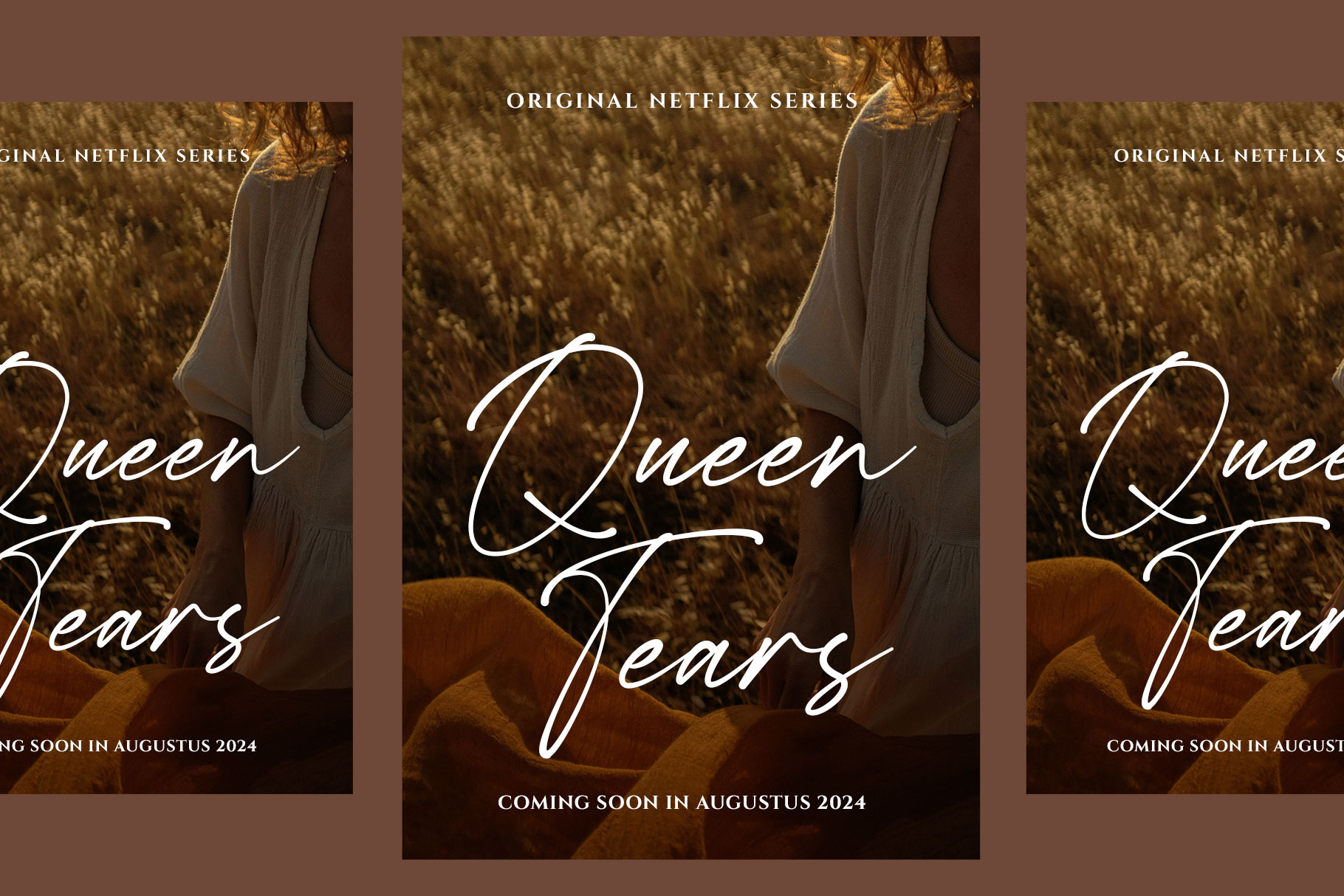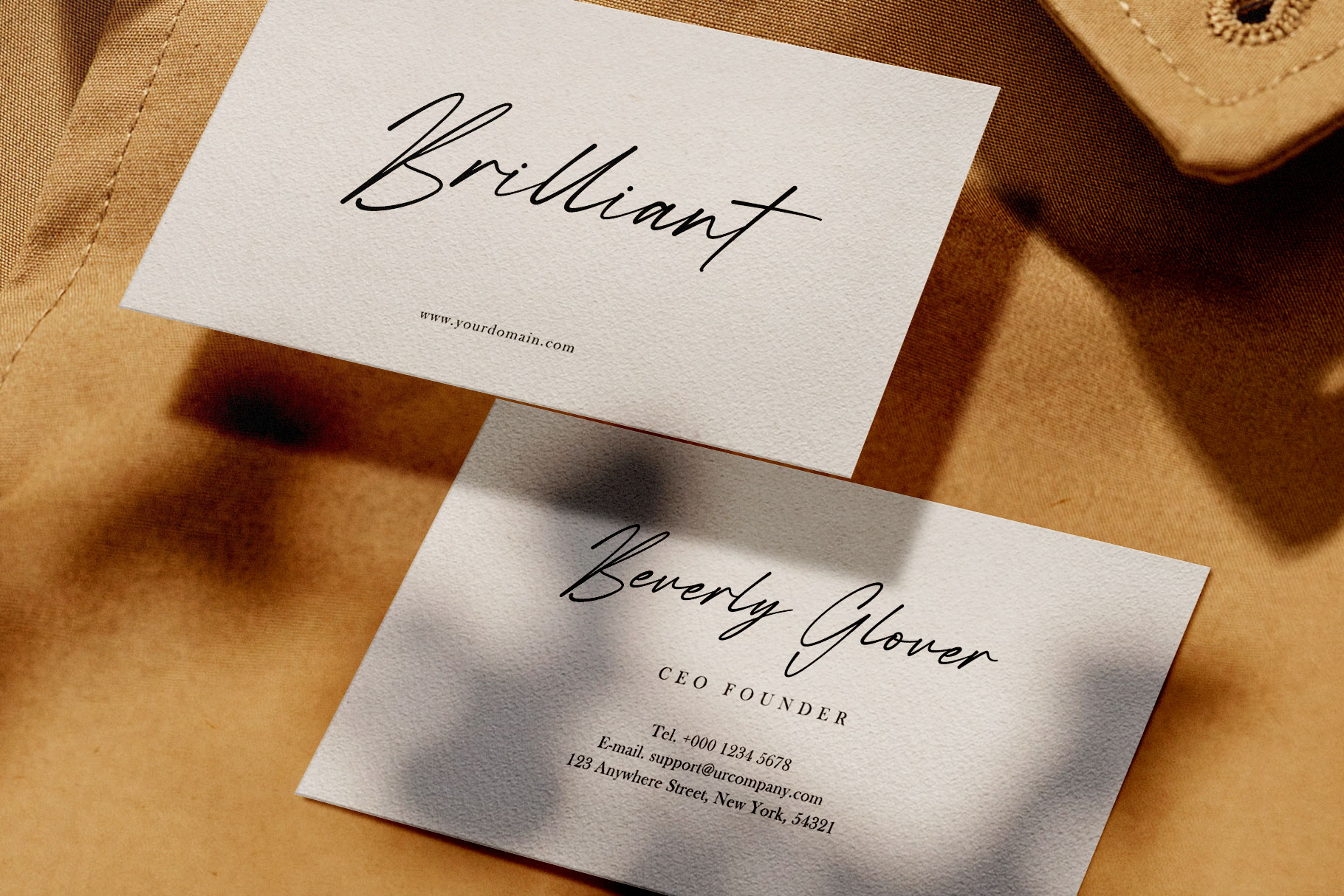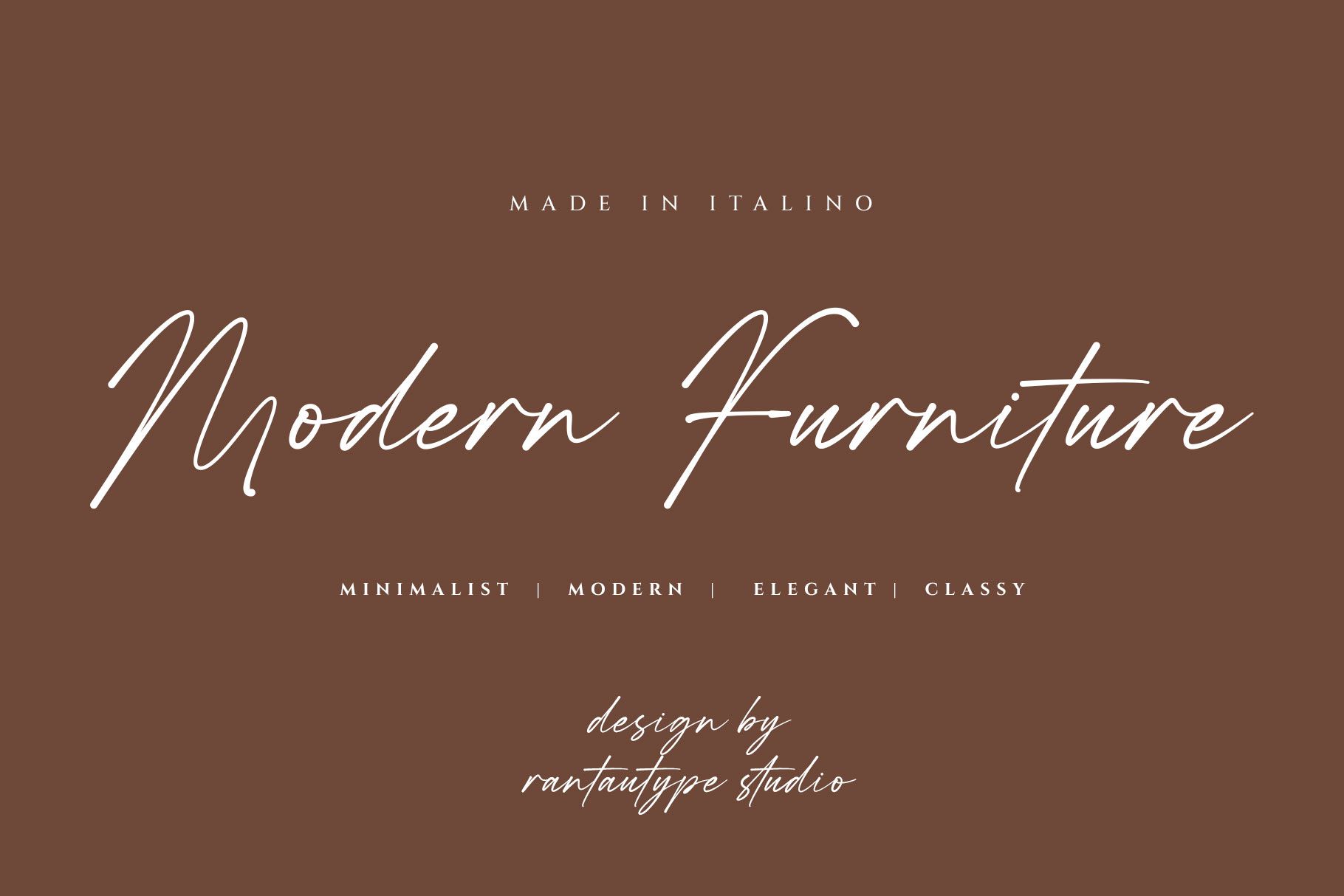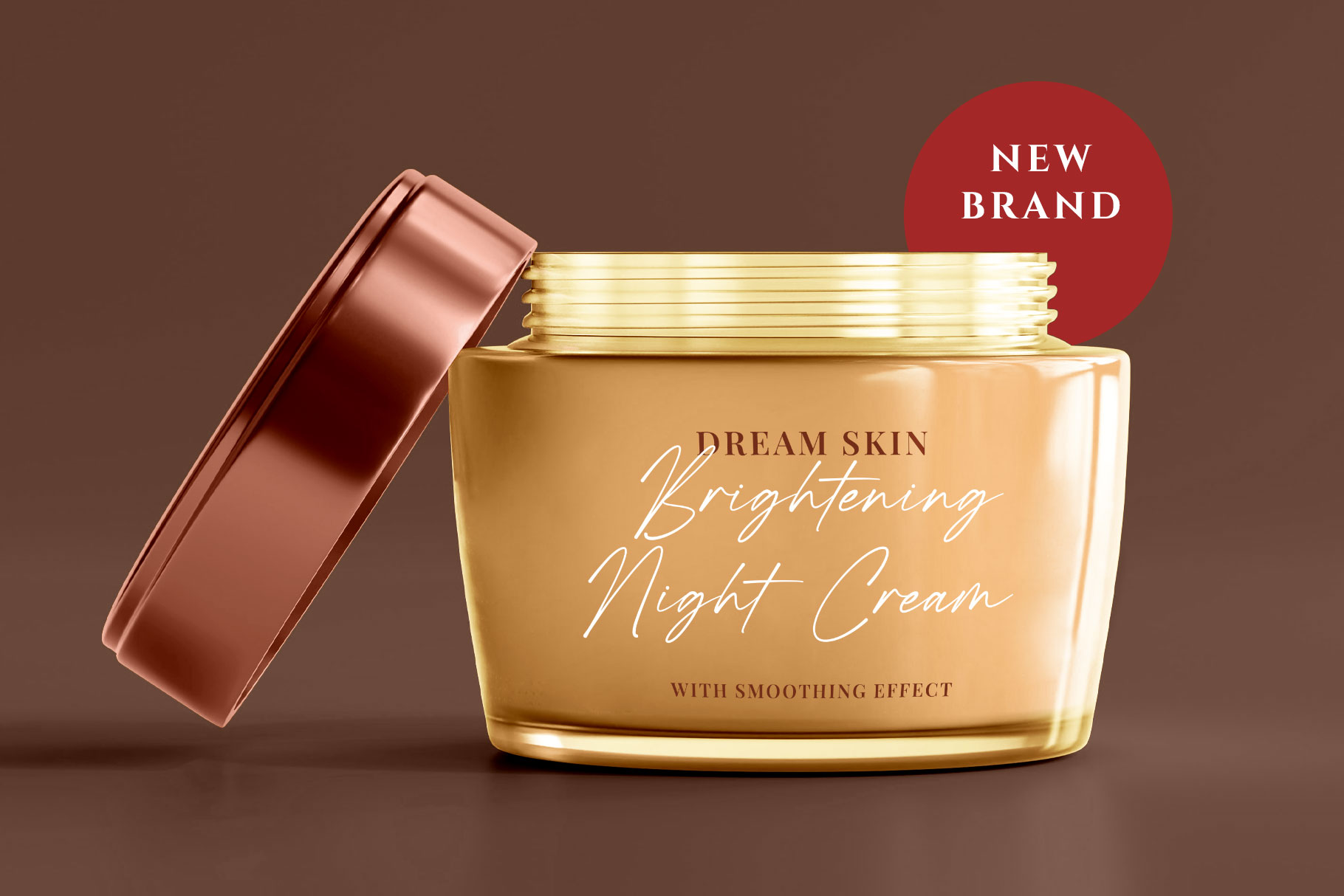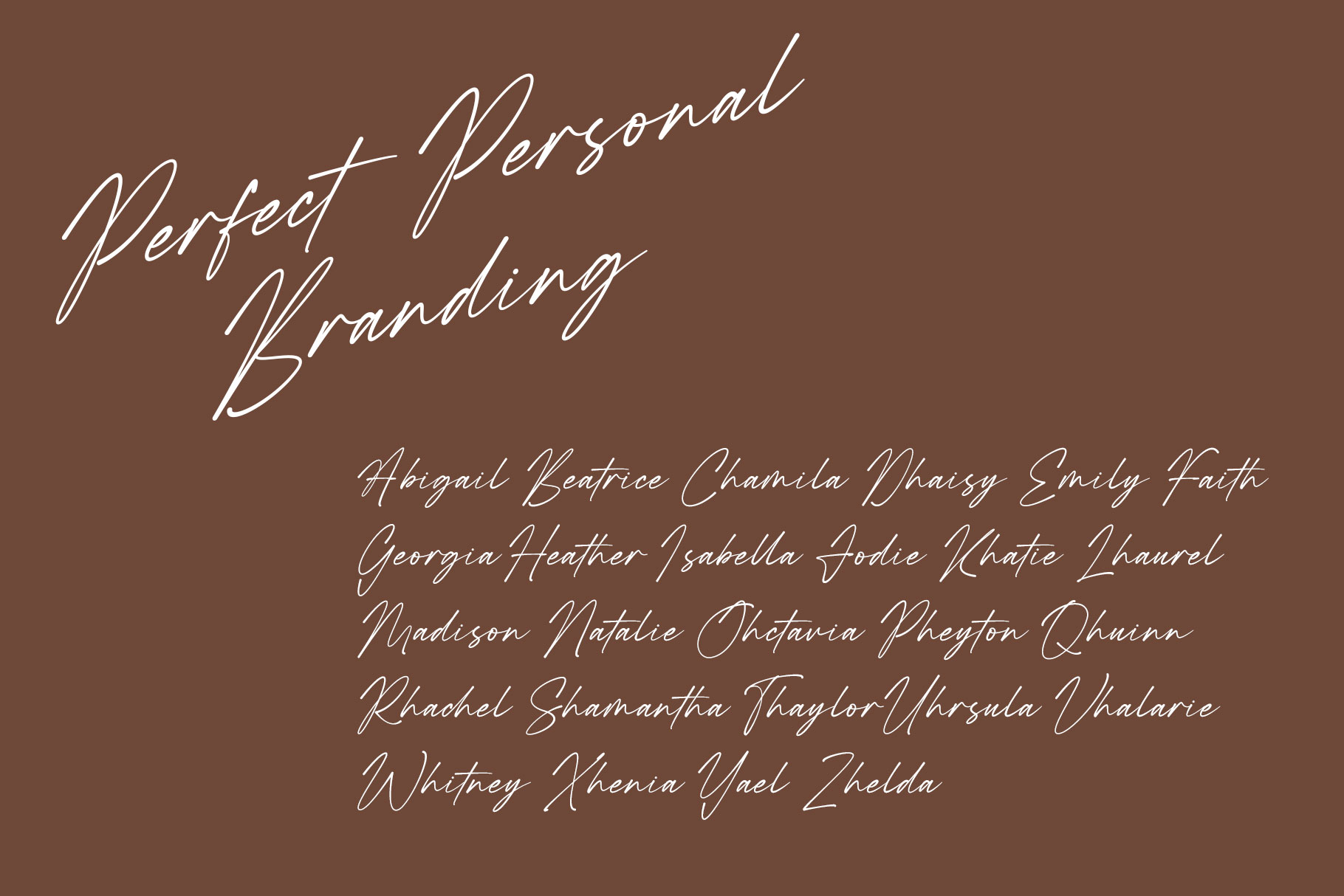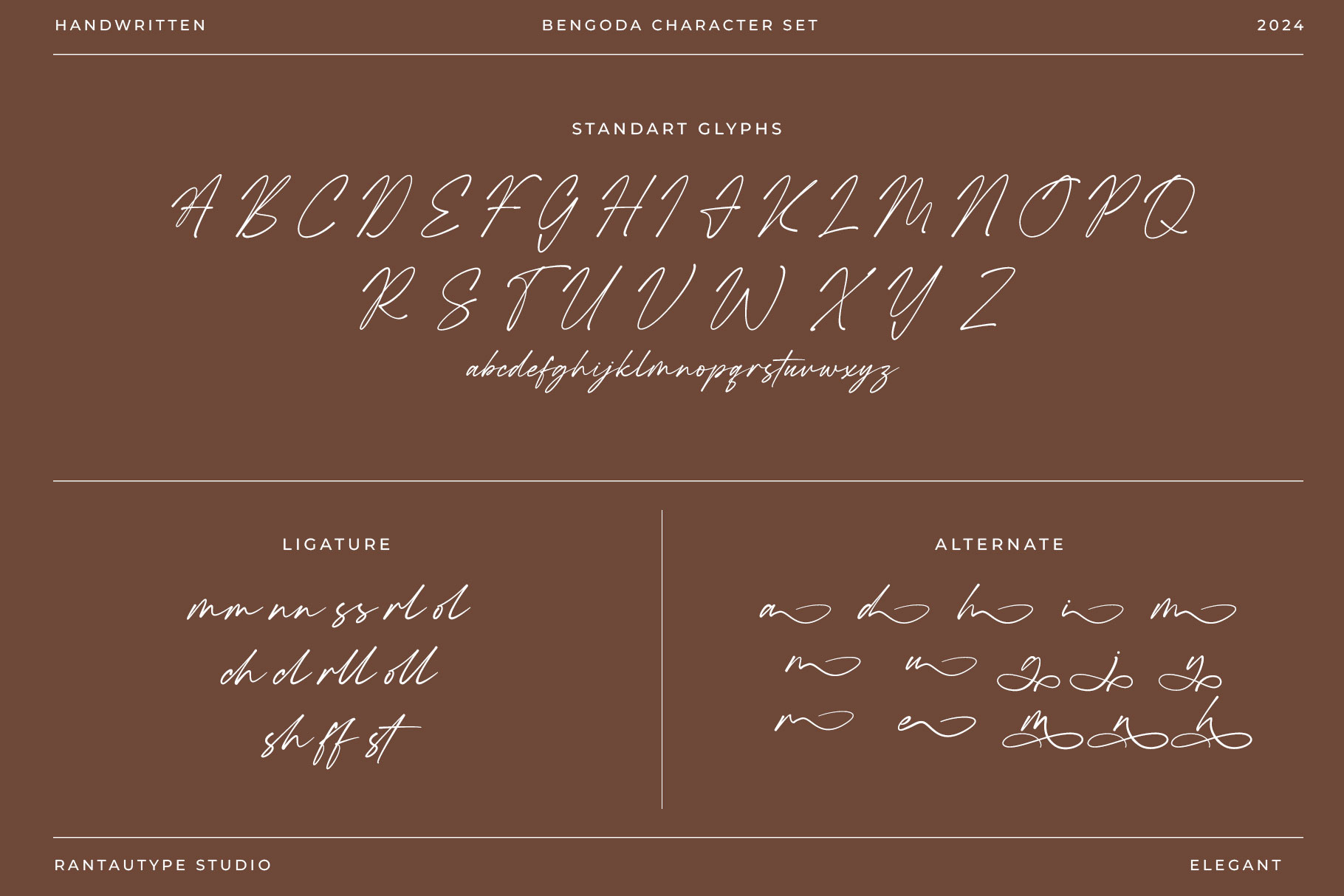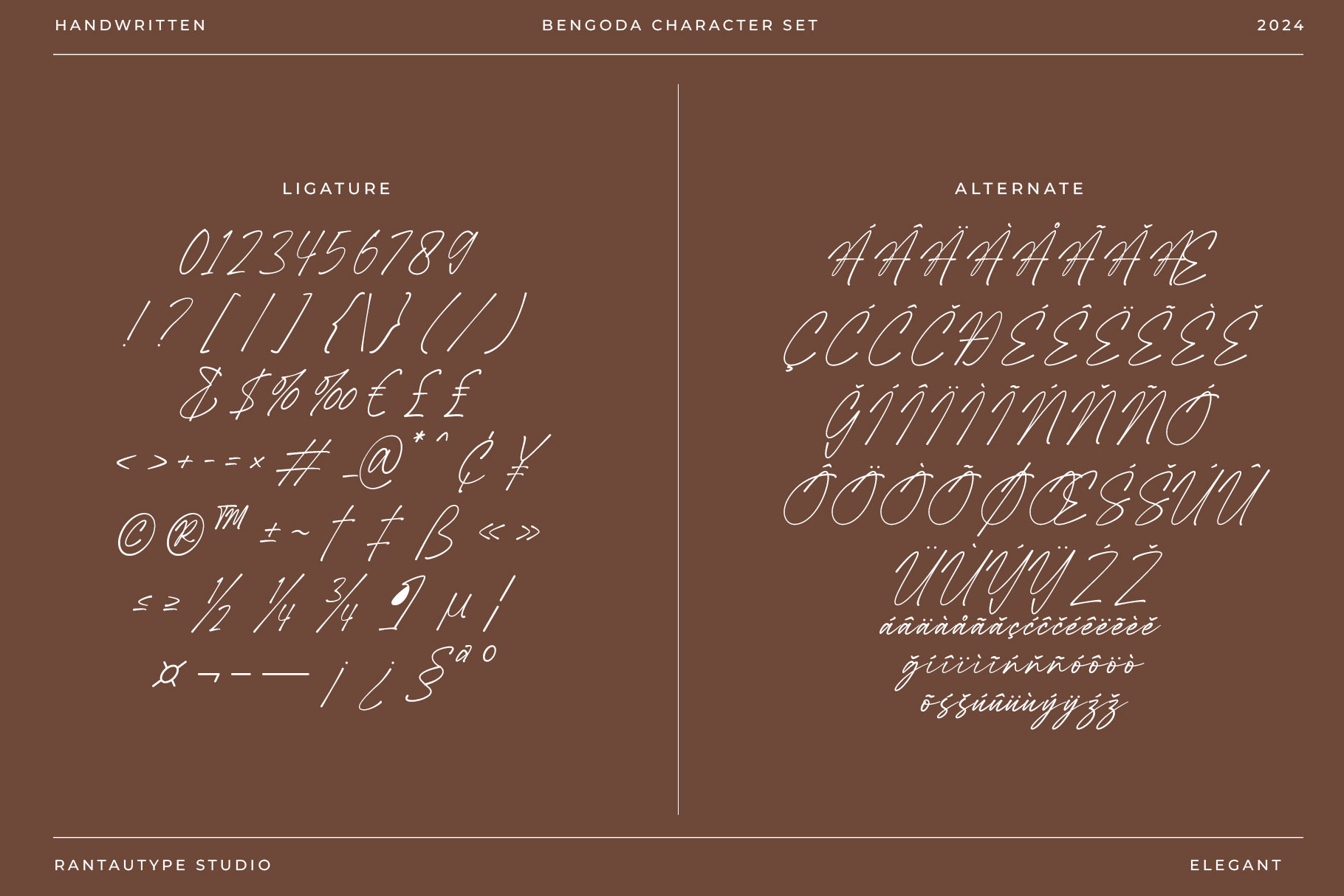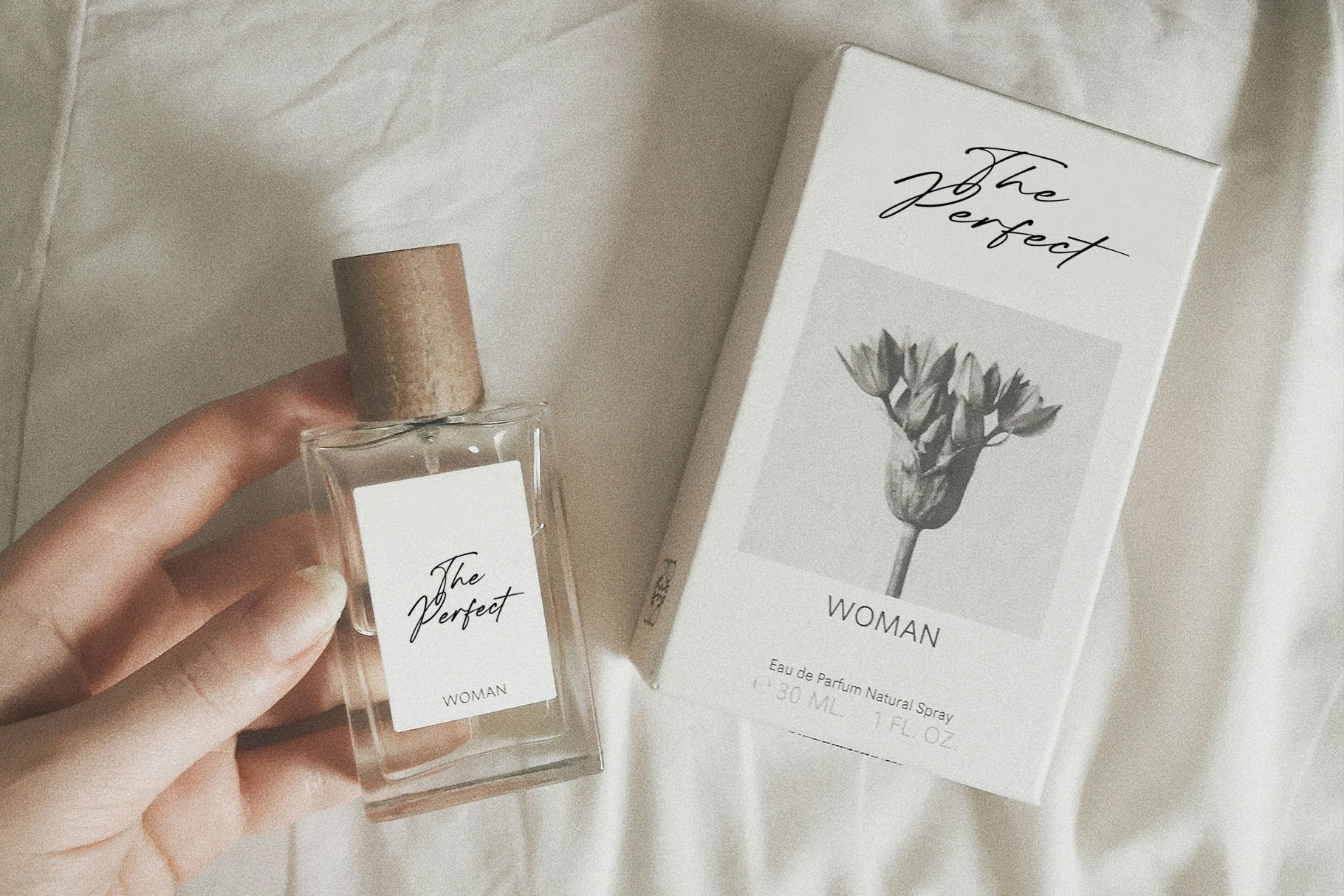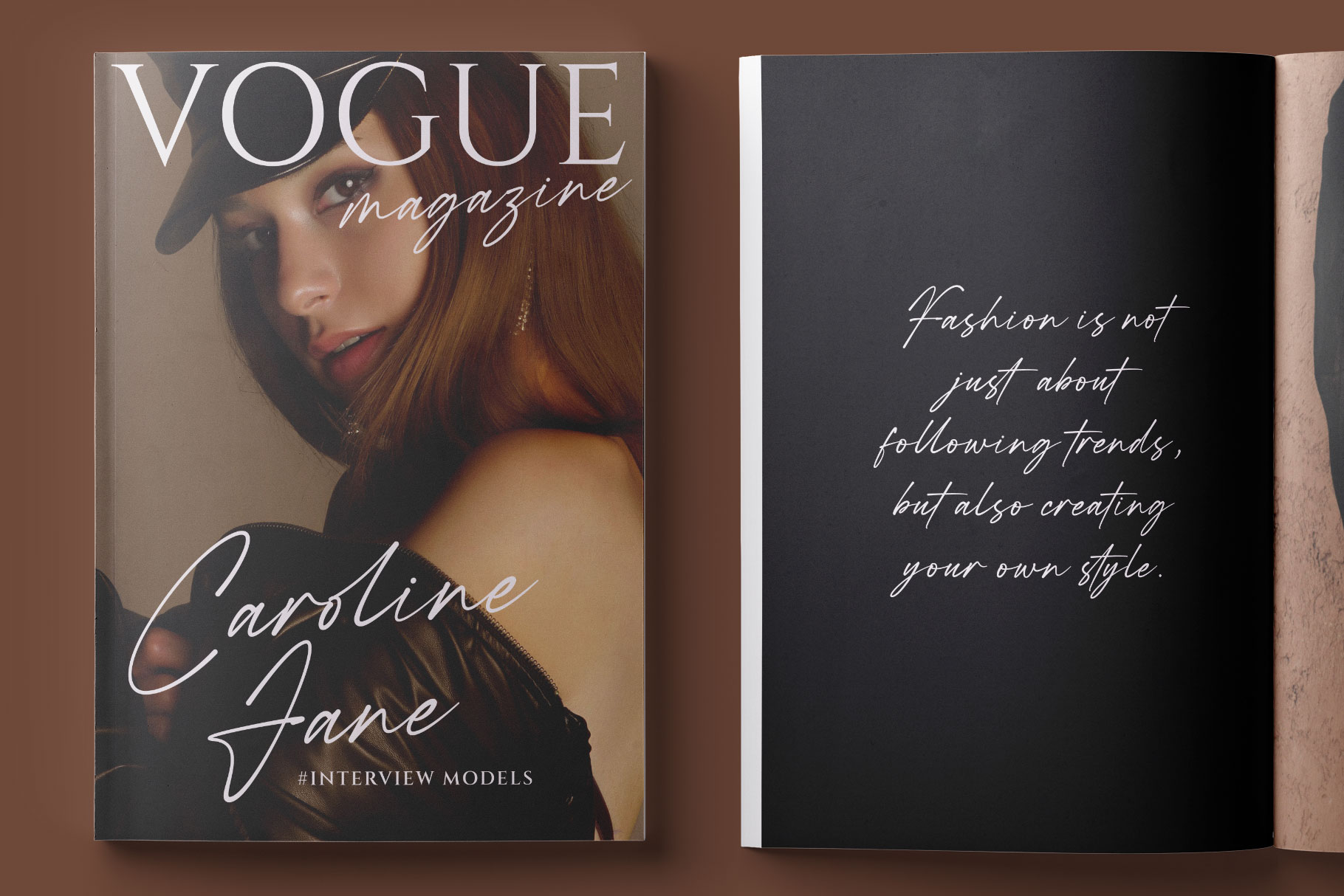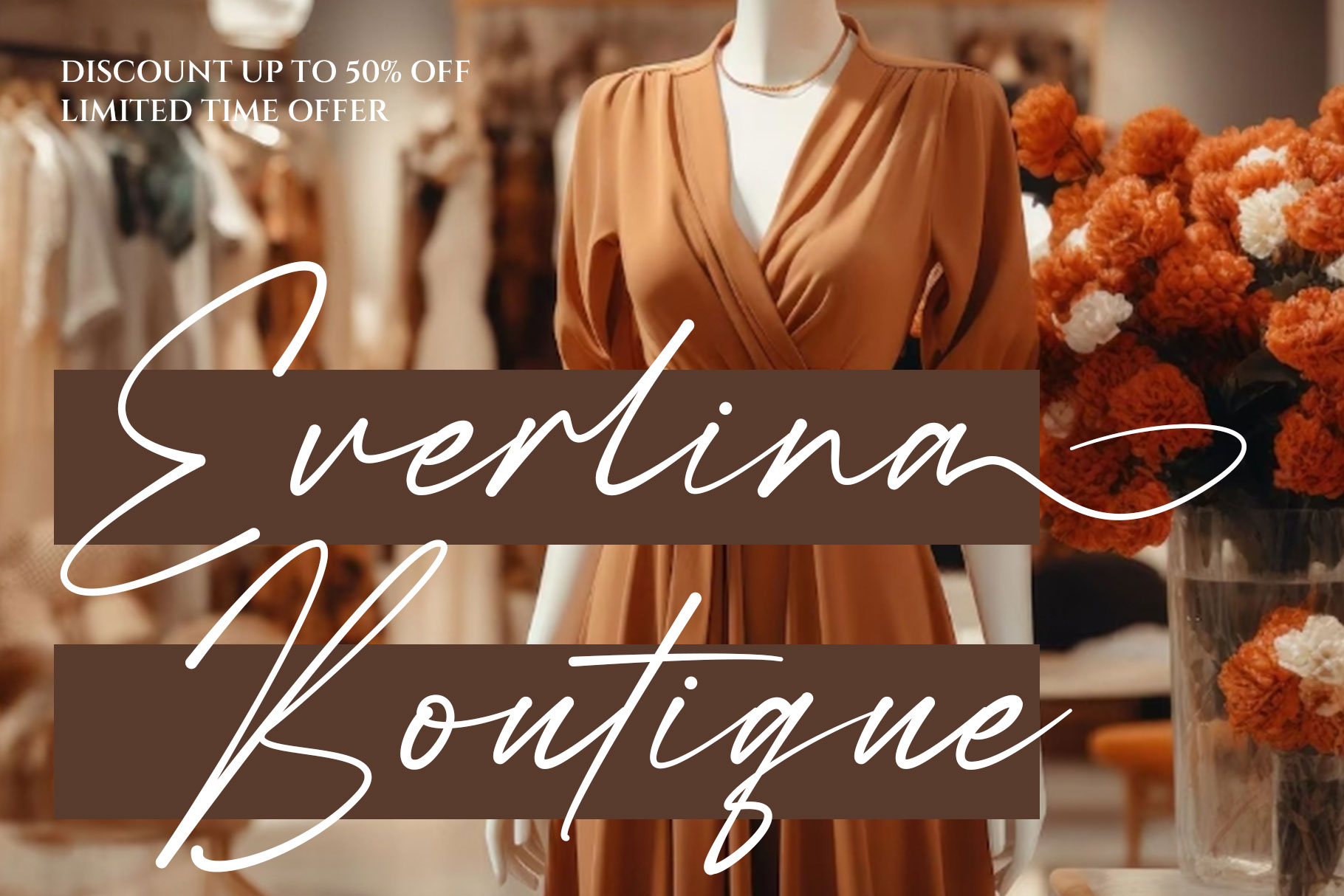
Bengoda Modern Handwritten Font
Bengoda is a modern handwritten font with stylish signature. Bengoda come with elegant flow look with perfect hand craft. We keep this font look elegant, fashionable, modern and eye catching.
Bengoda is a perfect choice for any creative endeavor, chic, lifestyle design such as logos, title, watermark on photography, cover, branding, display and magazine, wedding event, corporate brand, quotes, album cover, business card, business project, company branding and more project with handwritten taste.